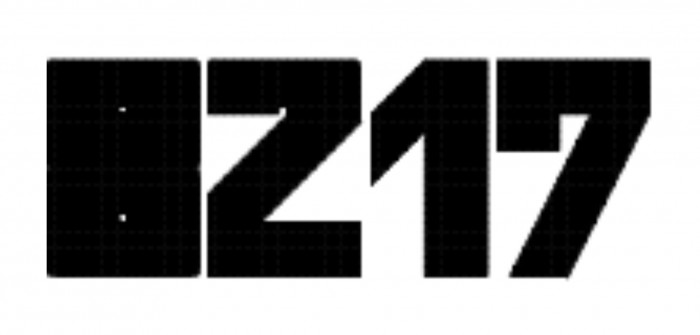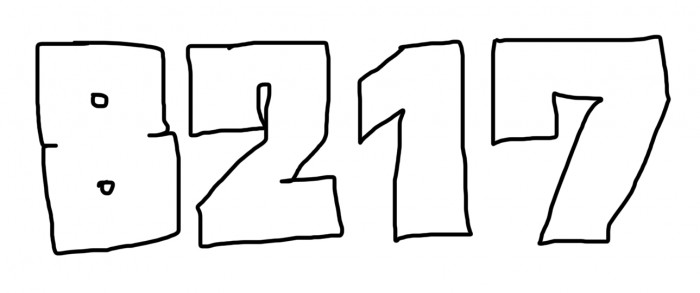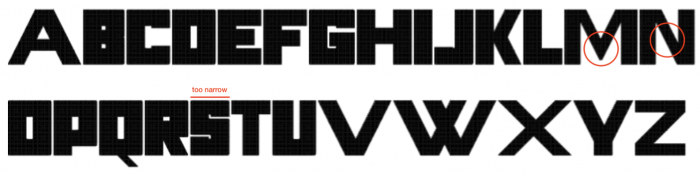
Some numbers like "8", "2", are similar to the original Bahnschrift font. I made my font on a piece of paper.
At Morristown High School, I saw someone's ID on one of these car's windshields' friends. I drew them out on a piece of paper in Bahnschrift font. Bahnschrift SemiBold was the only font on a someone's paper.
I'm not keen on this font. M is too simple. N has reverse contrast. S is too narrow. I am going to fix this font.
I need accents in this font.
Being this font when I learned Russian, Cyrillic is not optimized. I found every mistake in every glyph.